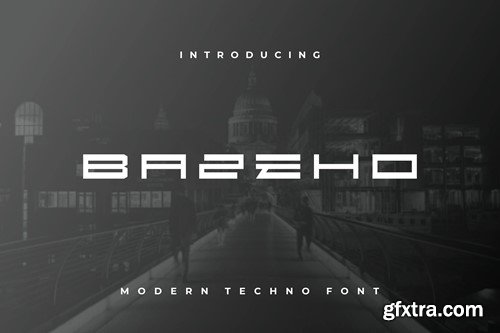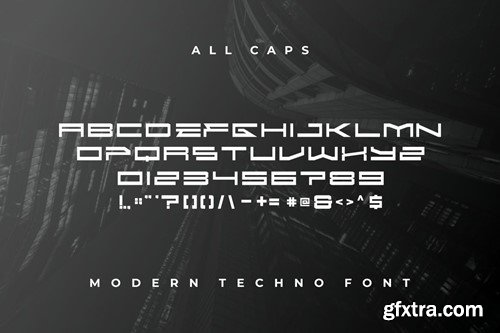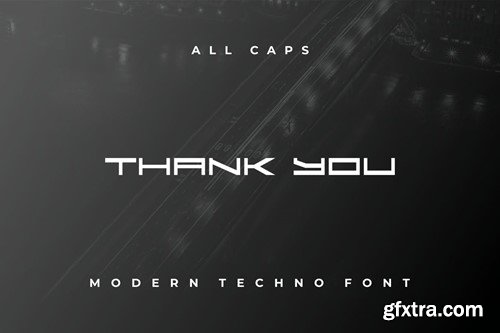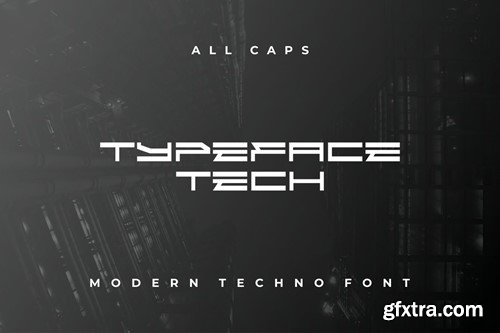
Bazeho Font
Introducing our new product Bazeho Font - Modern Font is a bold and authentic display font. The font is suitable for any branding project like logo, esport, and many more. outstanding in a wide range of contexts. availlable